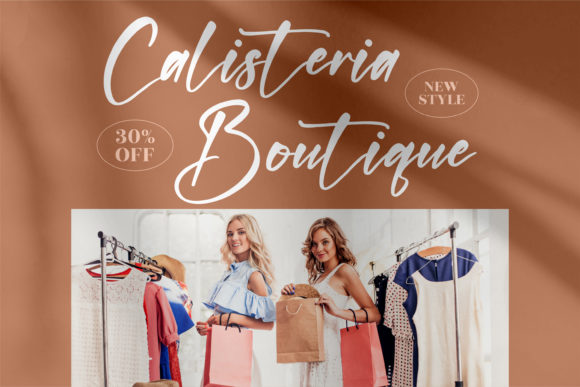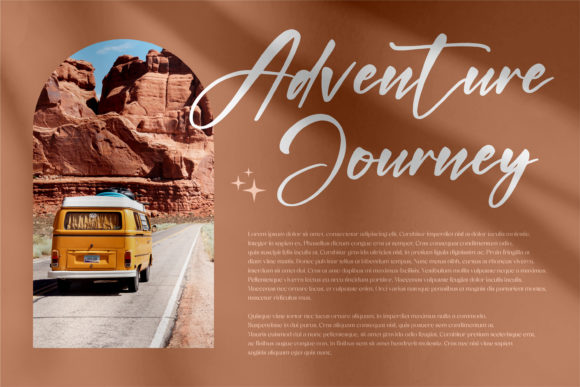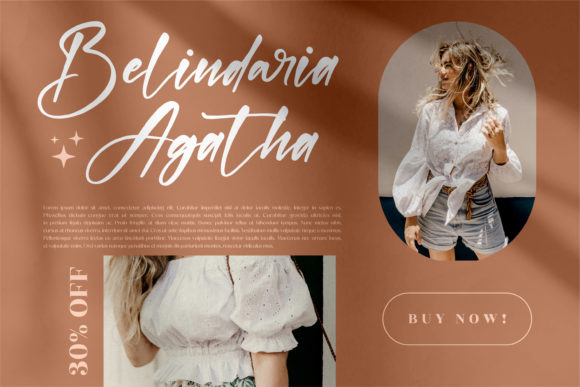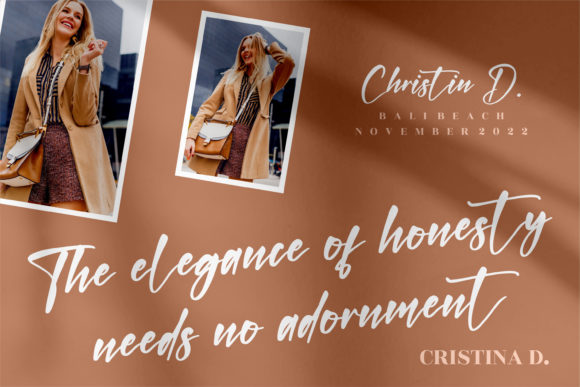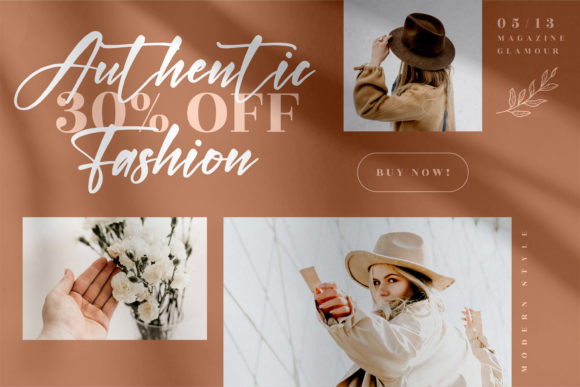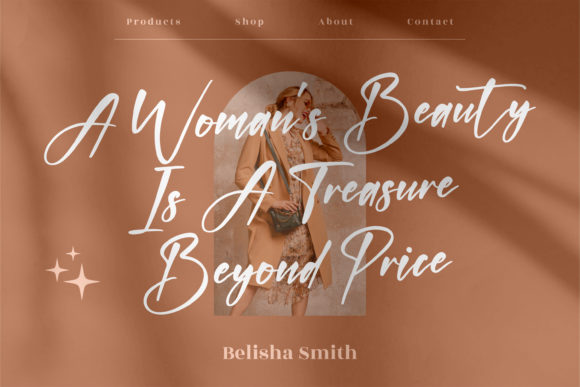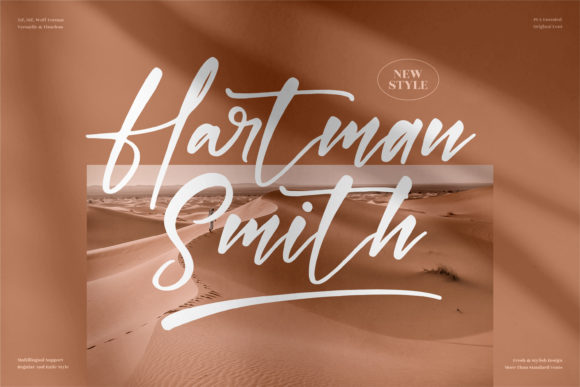
Hartman Smith Font: Elevate Your Designs with a Laid-Back yet Stylish Script
Are you on the hunt for a font that exudes a carefree vibe while still being stylish and sophisticated? Look no further than the Hartman Smith font. This beautiful script font is perfect for designers and crafters who want to add a personal touch to their projects. In this article, we’ll dive into the features and benefits of Hartman Smith, and explore how it can elevate your designs.
What is Hartman Smith Font?
Hartman Smith is a laid-back and stylish script font that is designed to bring a touch of personality to your designs. Its elegant yet casual feel makes it perfect for a wide range of projects, from branding and advertising to packaging and stationery. Whether you’re creating a logo, a poster, or a social media graphic, Hartman Smith is sure to make your design stand out.
Key Features of Hartman Smith Font
So, what sets Hartman Smith apart from other fonts? Here are some of its key features:
• PUA Encoding: Hartman Smith is PUA (Private Use Area) encoded, which means that you can access all of the glyphs and swashes with ease. This makes it simple to customize your text and add unique touches to your design.
• Laid-Back yet Stylish: Hartman Smith has a relaxed, casual feel that’s perfect for designs that need a bit of personality. At the same time, it’s still stylish and sophisticated, making it suitable for a wide range of projects.
• Script Font: As a script font, Hartman Smith has a fluid, handwritten feel that’s perfect for creating a sense of movement and energy in your designs.
Benefits of Using Hartman Smith Font
So, why should you choose Hartman Smith for your next design project? Here are just a few benefits of using this beautiful font:
• Adds Personality to Your Designs: Hartman Smith is the perfect way to add a personal touch to your designs. Its unique, laid-back feel will help your project stand out from the crowd.
• Versatile: Hartman Smith is suitable for a wide range of projects, from digital designs to print materials. You can use it to create everything from logos and branding materials to posters and social media graphics.
• Easy to Use: Thanks to its PUA encoding, Hartman Smith is easy to use and customize. You can access all of the glyphs and swashes with ease, making it simple to create a unique look.
How to Use Hartman Smith Font in Your Designs
Ready to get started with Hartman Smith? Here are a few tips for incorporating this beautiful font into your designs:
• Pair it with Bold Fonts: Hartman Smith has a delicate, elegant feel, so it’s often best paired with bold fonts that provide contrast.
• Experiment with Swashes: With its PUA encoding, Hartman Smith offers a range of swashes and glyphs that you can use to add unique touches to your design.
• Use it for Headings and Titles: Hartman Smith is perfect for headings and titles, where its elegant, script feel can really shine.
If you’re looking for a font that combines a laid-back, casual feel with style and sophistication, Hartman Smith is the perfect choice. With its PUA encoding, script font design, and elegant yet casual feel, it’s perfect for a wide range of design projects. Whether you’re a designer, crafter, or DIY enthusiast, Hartman Smith is sure to become a go-to font in your collection.